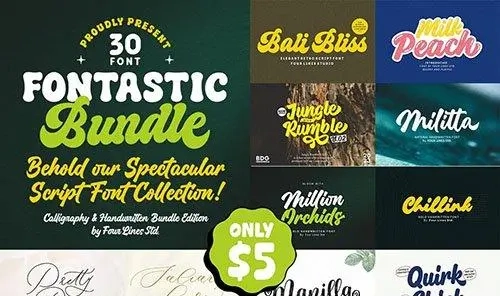
Fontastic-Font Script Edition Bundle
The Fontastic-Font Script Edition Bundle offers a curated selection of elegant script fonts designed to elevate your creative projects. With a variety of styles and weights, this bundle is perfect for branding, logos, web design, and print materials.
• Multiple script styles for diverse applications
• Includes regular, bold, and italic weights
• Styles: Script, Handwritten
• Use for invitations, greeting cards, and branding materials
• Pair with sans-serif fonts for a modern look
• Adjust kerning for optimal readability in larger texts